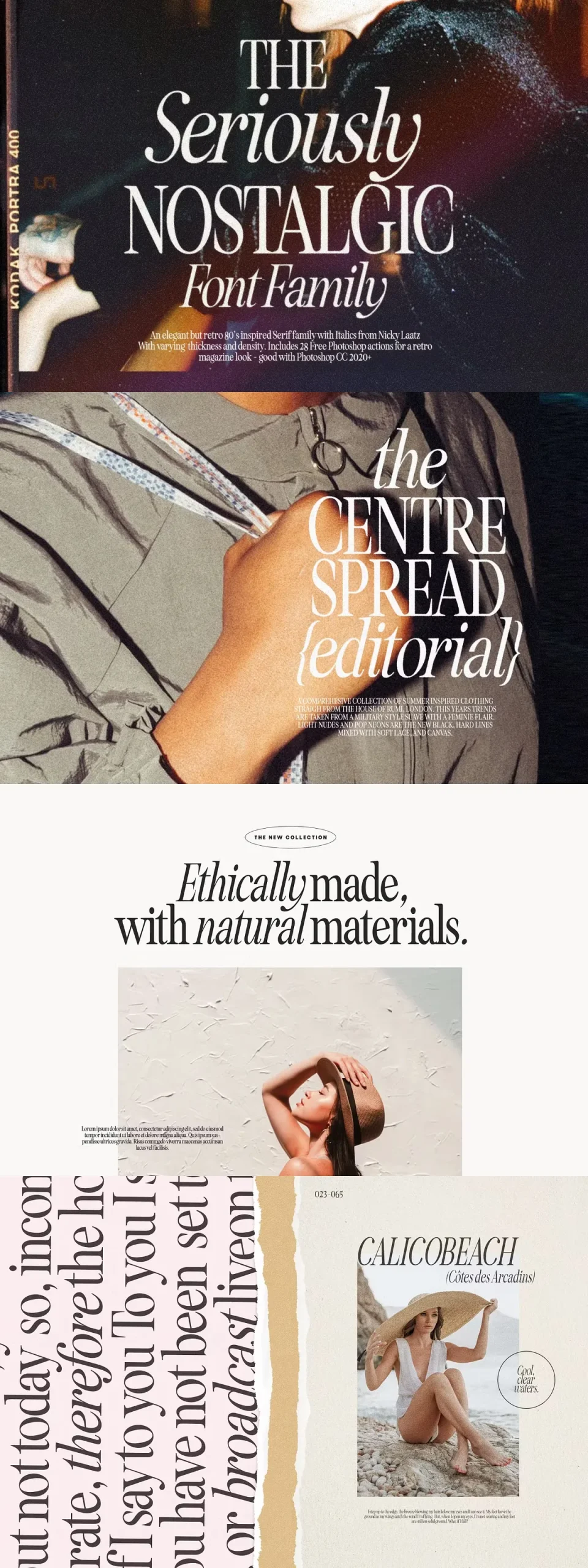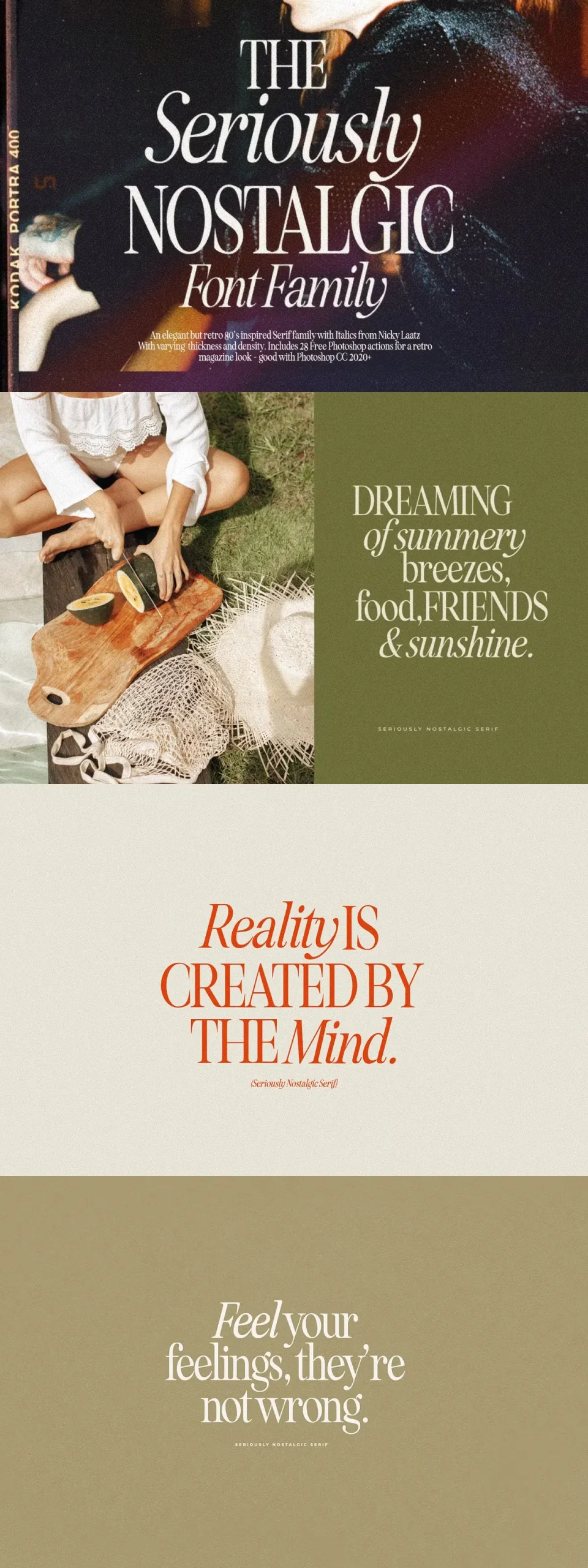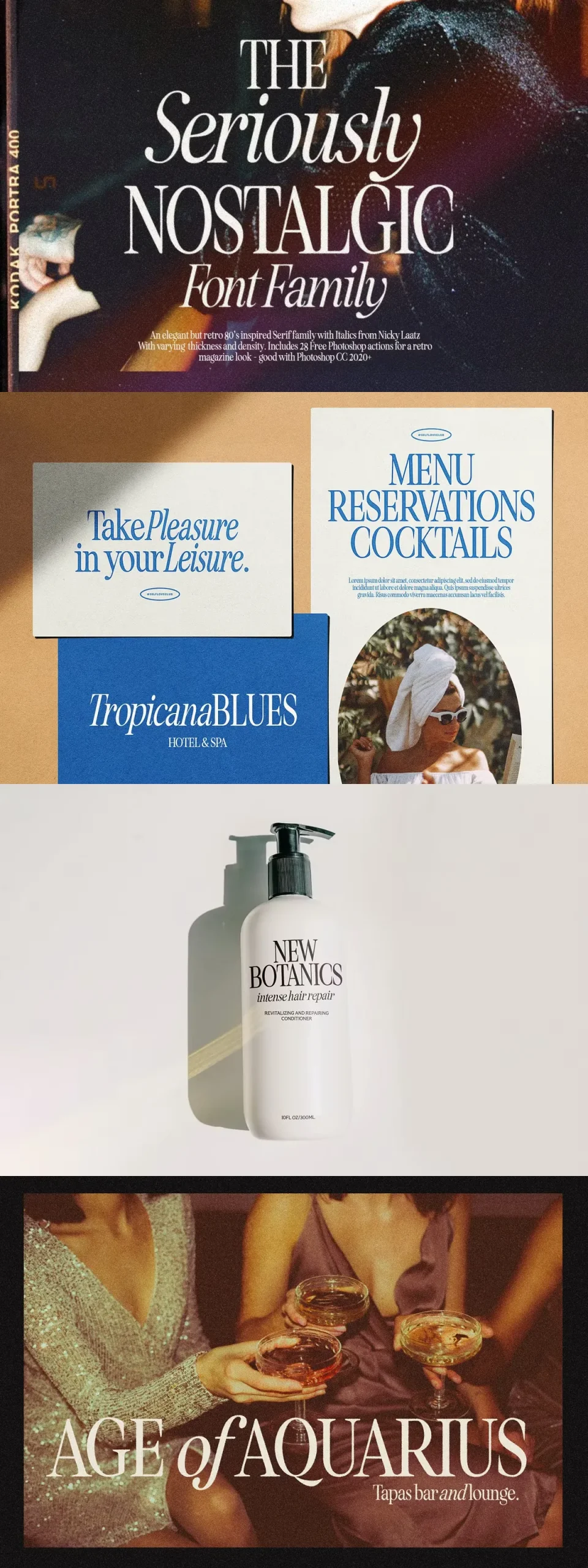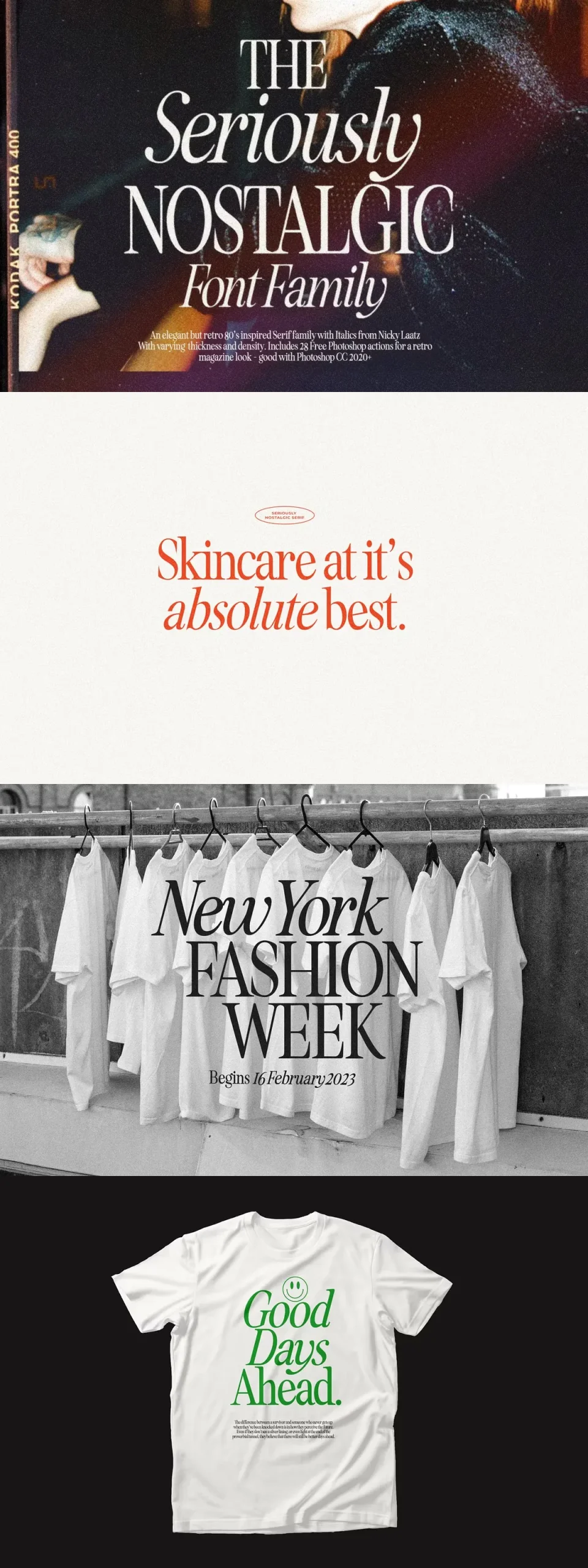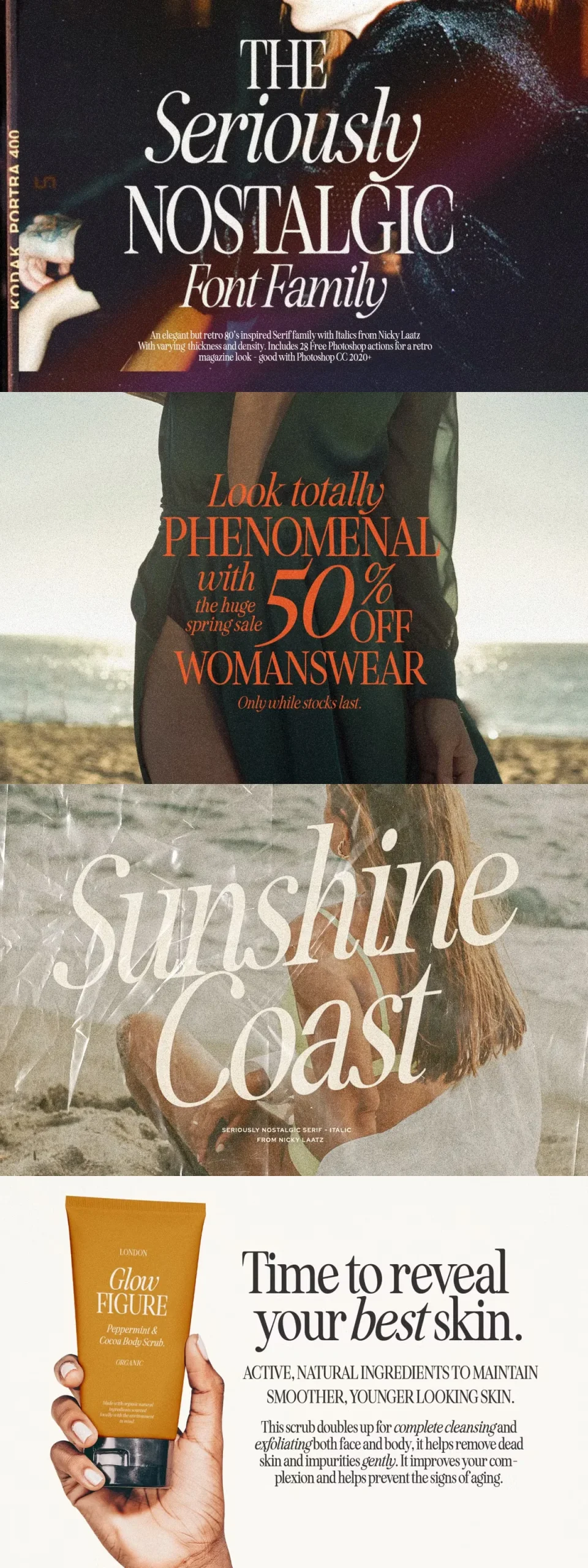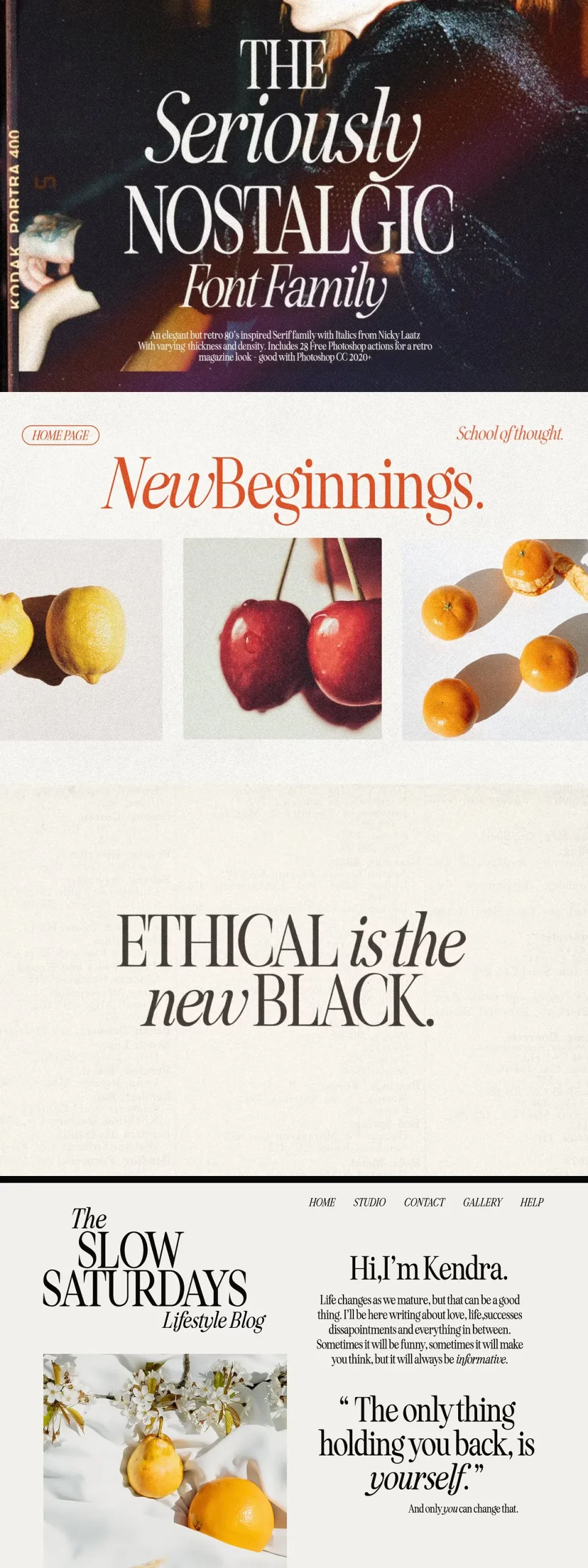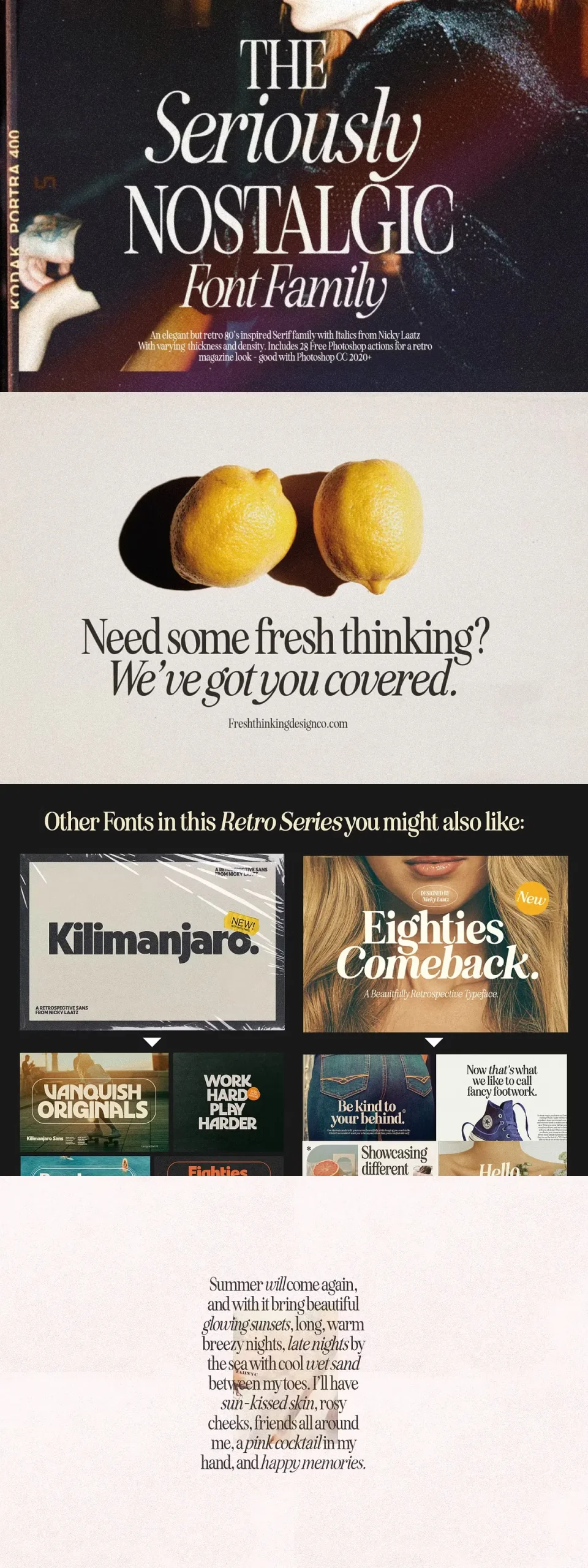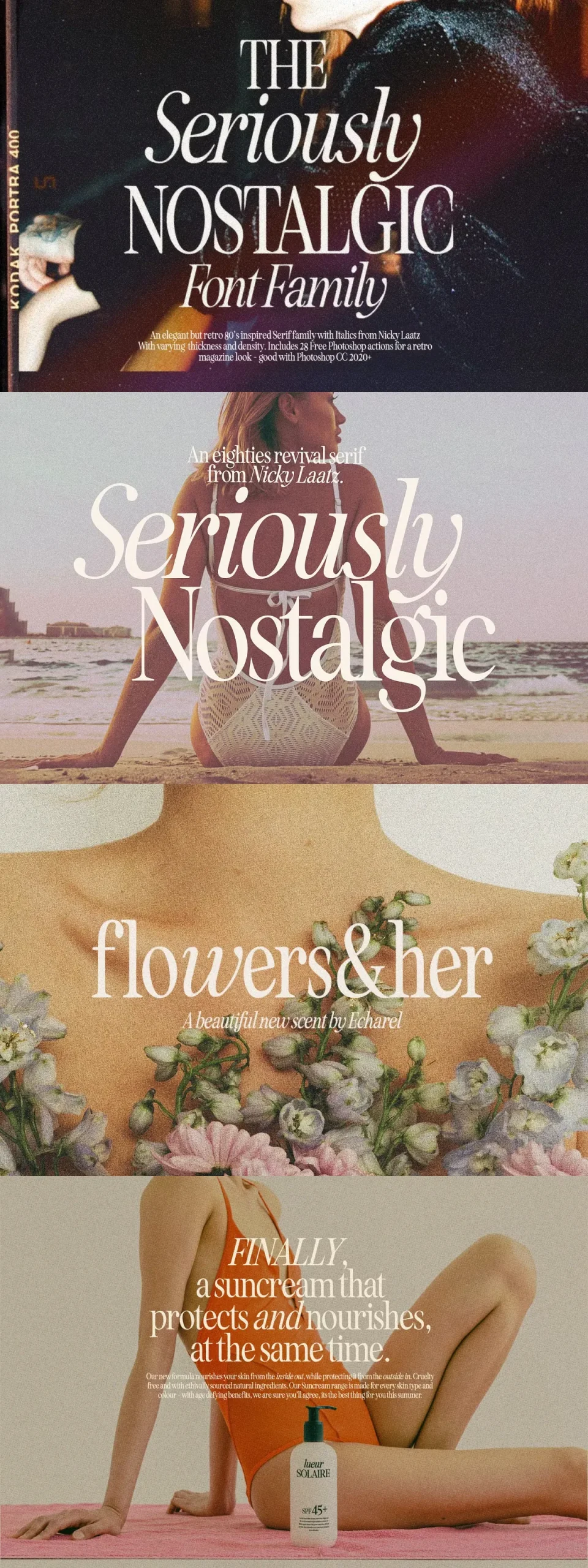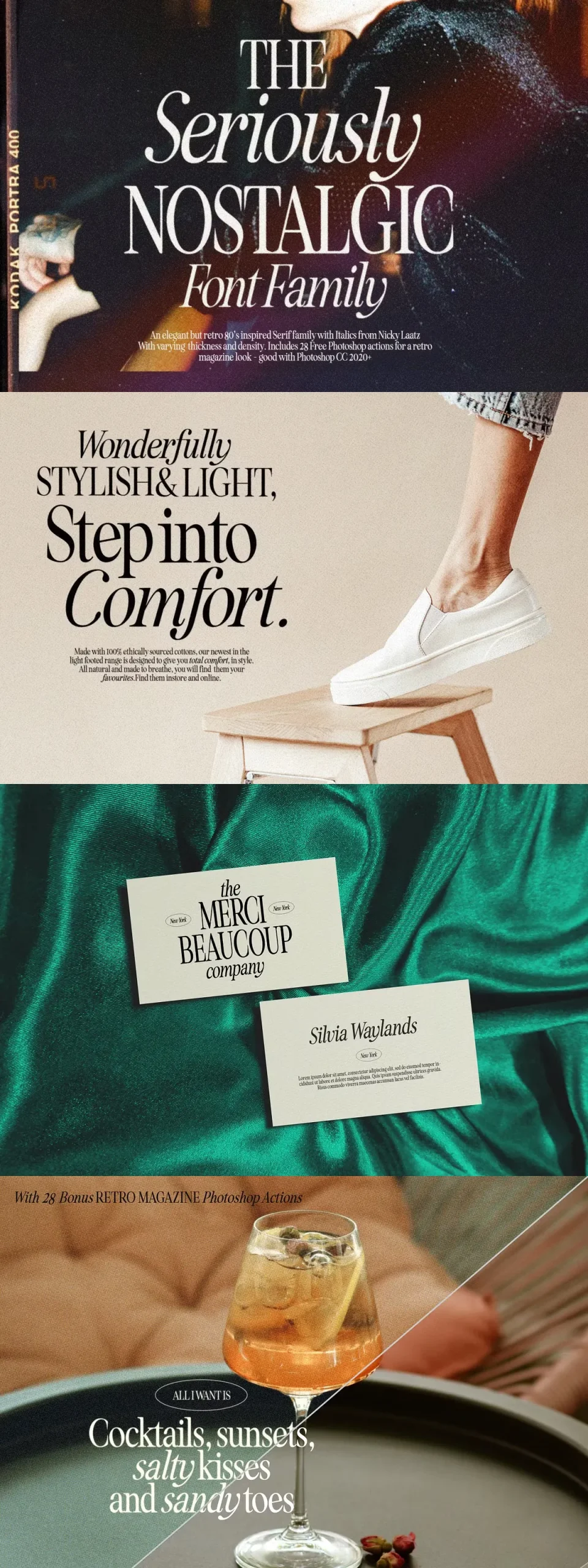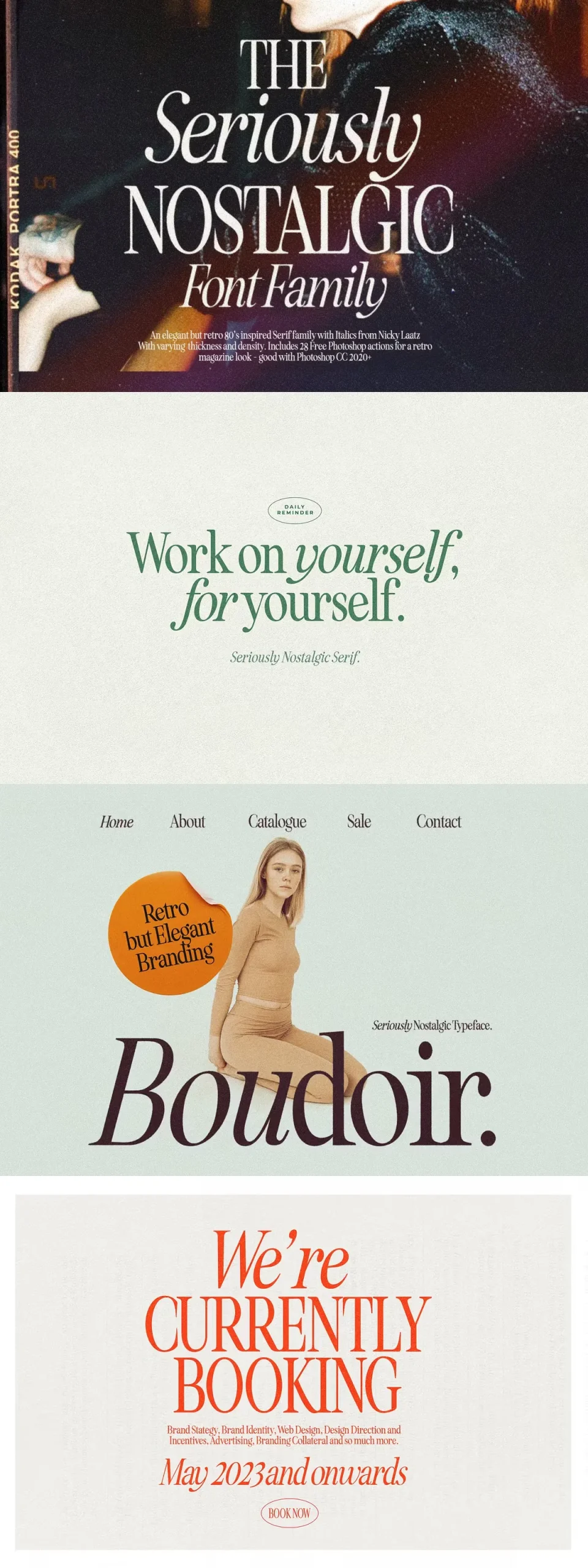
Seriously Nostalgic Serif
Say hello to Seriously Nostalgic! A classy eighties magazine inspired serif – with a complementary italic version 🙂 Both come in two versions one with more contrast and crisper than the other. In true Eighties style, they also come in varying degrees of Condensed form – mix and match them to create eye-catching effects.